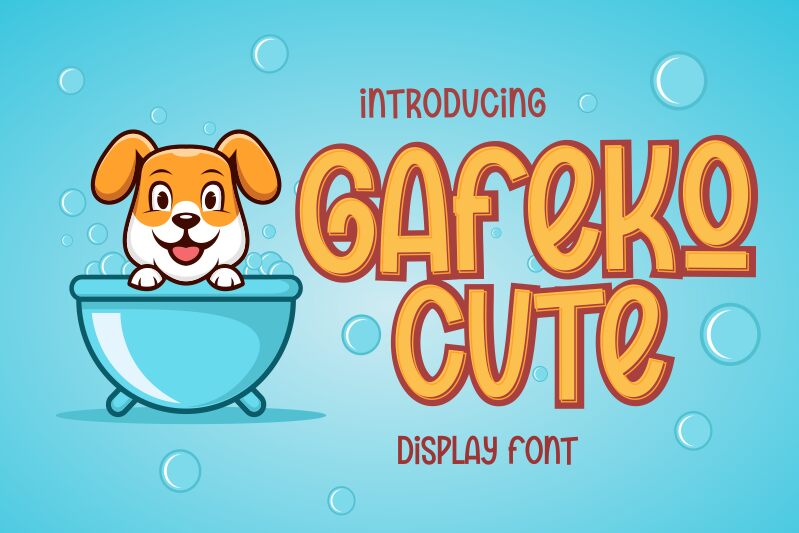
Gafeko Cute Font, designed by the talented Ari Wibowo, is a charming and playful display font that is sure to add a touch of whimsy to any project. With its semi-light weight and condensed width, this font is perfect for creating eye-catching headlines, logos, and branding materials. The comic style of the font lends itself well to designs for children's books, greeting cards, and invitations. Whether you're designing for print or digital media, Gafeko Cute Font is a versatile choice that will bring your ideas to life with a delightful sense of fun.